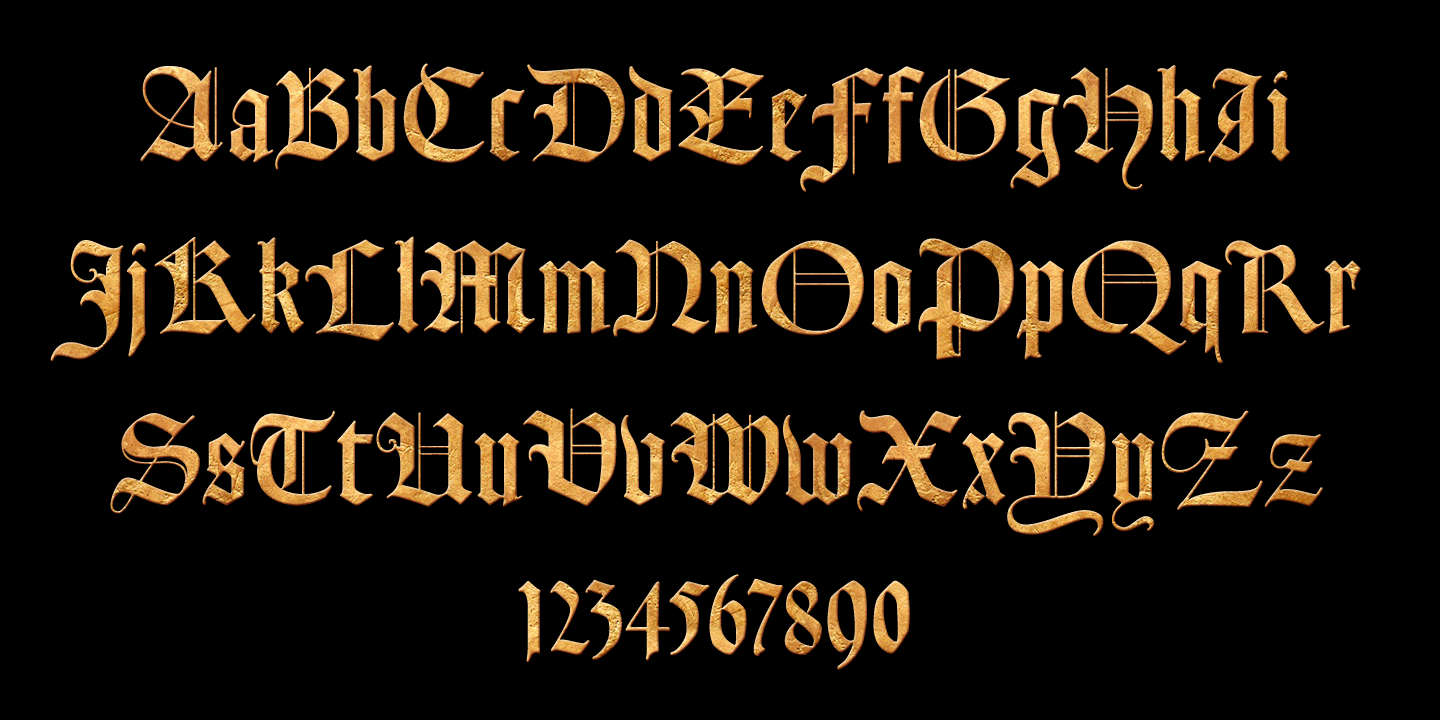
Goudy Text CT Font is perfect for medieval manuscripts, religious publications, historical documents, Gothic revival designs, ceremonial certificates, university diplomas, traditional calligraphy, church materials, and scholarly ecclesiastical communications. This distinguished typeface brings medieval authenticity and Gothic elegance to projects requiring traditional blackletter typography with historical gravitas and scholarly appeal.
What makes Goudy Text CT Font exciting is its Gothic heritage that honors the magnificent tradition of medieval manuscript illumination and monastic scribal excellence with remarkable historical accuracy and scholarly sophistication that transports readers to medieval scriptoriums. The font features traditional blackletter forms with ecclesiastical character and medieval proportions that reflect the devotional craftsmanship of monastery scribes and the sacred beauty of illuminated manuscripts. Its reverent personality and scholarly nature make it irresistible for academic institutions seeking typography that communicates historical authority while celebrating the timeless dignity of medieval learning and religious manuscript traditions.
The Goudy Text CT Font family includes traditional weights and Gothic styles: Regular, Medium, Bold, and ornamental variations with medieval ligatures and ecclesiastical symbols. Each weight maintains the font's authentic character while offering designers scholarly flexibility for historical branding and medieval design applications requiring period accuracy and religious presentation.
Whether you're designing for universities or religious institutions, Goudy Text CT Font Free Download provides designers with an authentic, historically-focused typeface solution. The font's Gothic aesthetics and medieval styling make it ideal for academic publishers, religious organizations, historical societies, and ceremonial applications. Its dignified presence ensures your message communicates scholarly authority and religious reverence while maintaining excellent medieval readability. The comprehensive character set includes ecclesiastical symbols and medieval decorations, making it perfect for creating distinguished headlines and publications that honor manuscript traditions and establish credibility in academic and religious environments celebrating historical scholarship and sacred typography.